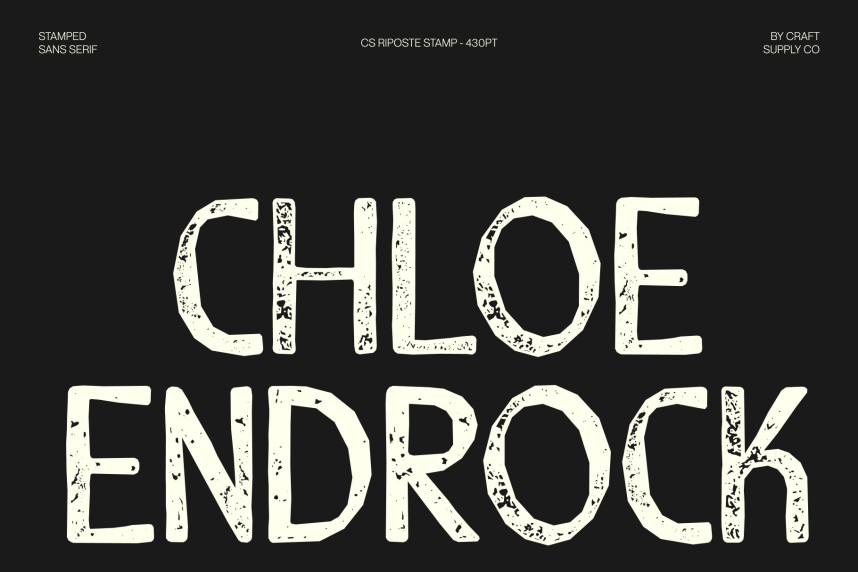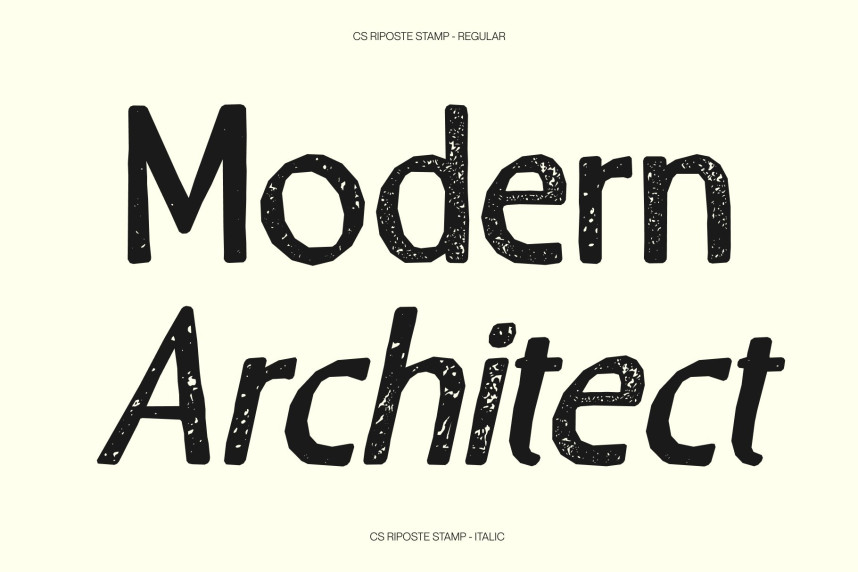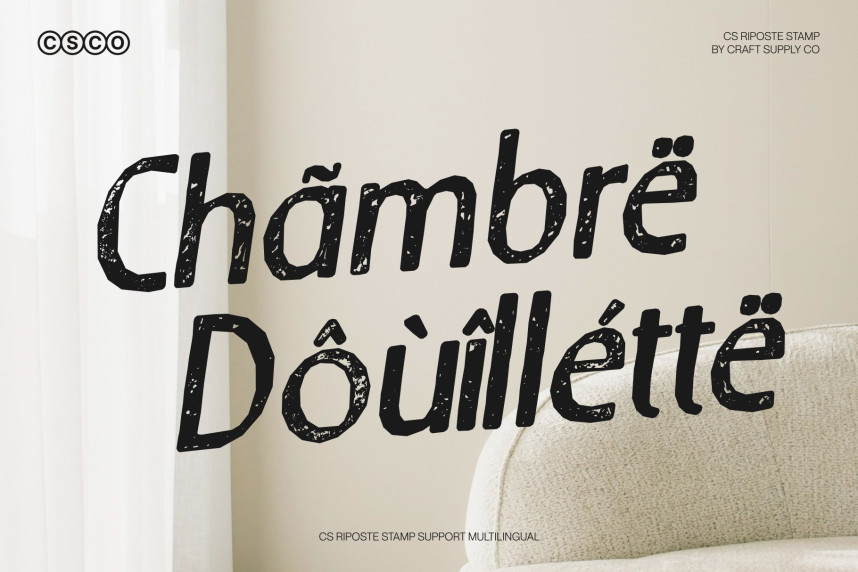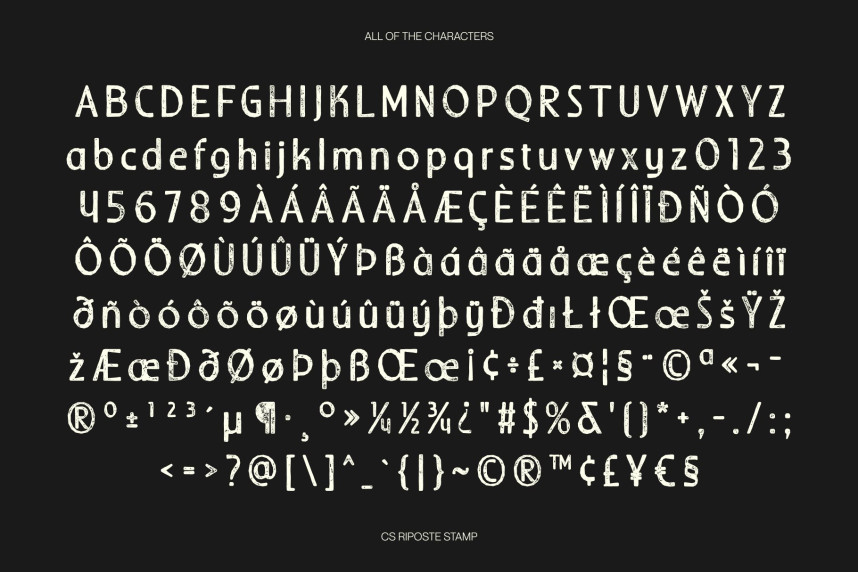
CS Riposte Stamp Font
CS Riposte Stamp Font – Modern Sans Serif Font: Where Fresh Clarity Meets Vintage Stamp Texture
Fresh Modern Clarity with Stylish Confidence
This is a modern sans serif font that embodies clean contemporary design with fresh modern clarity and stylish confidence. Its refined letterforms, balanced proportions, and minimalist construction create a polished visual identity that feels professional, versatile, and effortlessly sophisticated. Designed to perform across a wide range of creative applications, it delivers both exceptional readability and a distinctive modern presence.